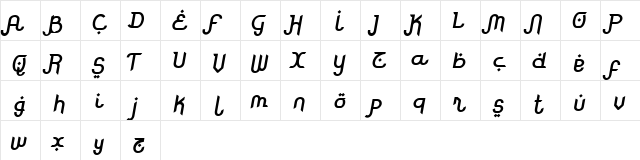
Rodja Bold Alt Slanted Font Preview
| Foundry | Mikrojihad |
| Designer | Mikrojihad |
Design Context for Rodja Bold Alt Slanted Typeface
Rodja Bold Alt Slanted takes a measured approach to typography — its balanced proportions and neutral character make it a reliable workhorse for both digital and print work. Its italic angle brings a sense of urgency and motion to the letterforms. Its bold stroke weight gives it real presence on the page.